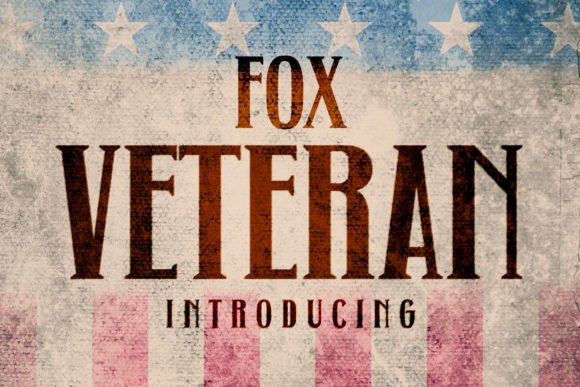
Introducing Fox Veteran Font, the ultimate vintage and cool slab serif font that is set to revolutionize your creative projects! Crafted with meticulous attention to detail by the talented Fox7, this font is not just any ordinary typeface - it's a game-changer.
Are you in search of the best font for your book? Look no further! Fox Veteran Font is specifically designed to add a touch of elegance and sophistication to any publication. Its bold and distinctive characters will captivate your readers, making your words come to life on the pages. Let your book stand out from the crowd with this extraordinary font.
But that's not all - Fox Veteran Font is incredibly versatile. Whether you're designing logos, business cards, or even looking to print it on t-shirts, this font has got you covered. Its unique style and timeless appeal will make your creations truly outstanding, regardless of the subject matter.
Don't settle for ordinary fonts that fade into the background. Fox Veteran Font is here to make a statement! With its strong presence and eye-catching aesthetics, it demands attention and leaves a lasting impression. Let your designs speak volumes with this font that exudes confidence and creativity.
Adding Fox Veteran Font to your fonts' library is like unlocking a treasure trove of possibilities. Its rich heritage and vintage charm bring a touch of nostalgia to your projects, evoking emotions and connecting with your audience on a deeper level. It's more than just a font - it's an experience.
Immerse yourself in the world of Fox Veteran Font and unleash your imagination. Feel the excitement as your designs come to life, radiating with energy and personality. From elegant to edgy, this font effortlessly adapts to your vision, becoming the perfect companion on your creative journey.
Don't miss out on this exceptional opportunity to elevate your designs to new heights. Fox Veteran Font is the missing piece that will transform your projects into masterpieces. Join the league of visionary creators who understand the power of a remarkable font.